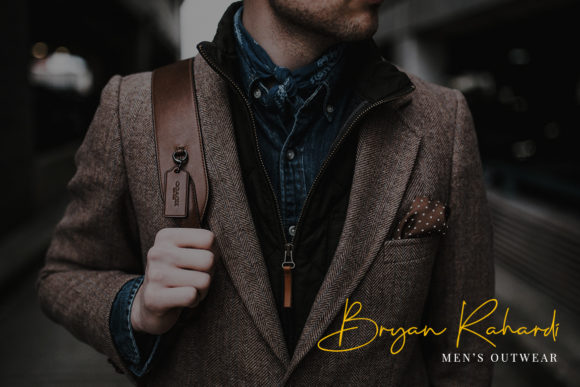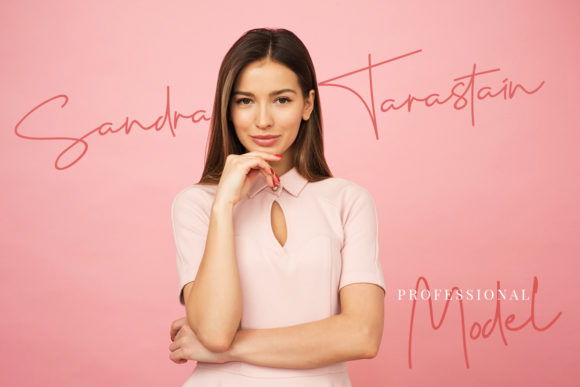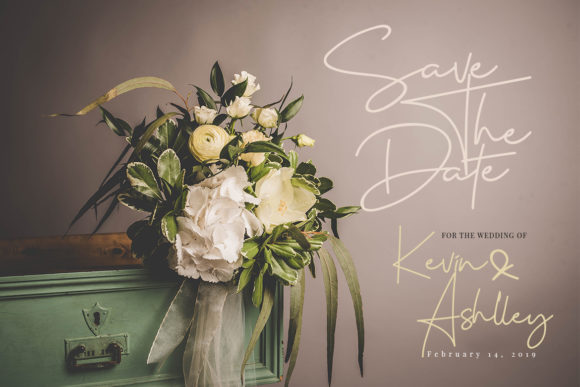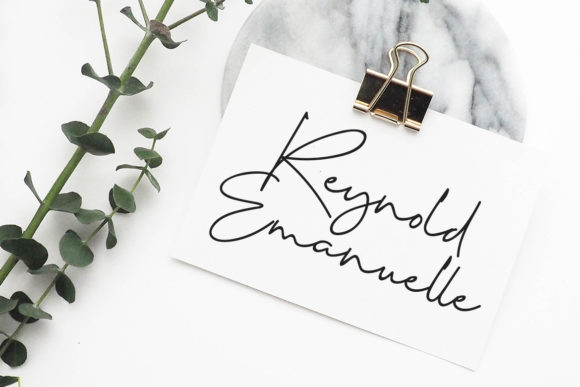
Cervanttis Script Font: Elevate Your Designs with a Touch of Handwritten Elegance
In the world of design, fonts play a pivotal role in conveying messages, evoking emotions, and creating lasting impressions. Among the myriad of fonts available, the Cervanttis Script Font stands out for its unique blend of natural flow and stylish sophistication. This handwritten signature script is versatile, making it an ideal choice for a wide range of projects, from branding and logos to wedding designs, social media posts, and beyond.
The Essence of Cervanttis Script Font
The Cervanttis Script Font is characterized by its fluid, handwritten strokes that exude a sense of elegance and personal touch. Its natural and stylish flow makes it perfect for designers and crafters looking to add a human element to their creations. Whether you’re working on a logo, a wedding invitation, or a product label, this font ensures that your design stands out with a unique, handcrafted feel.
One of the key advantages of the Cervanttis Script Font is its versatility. It’s suitable for a myriad of applications, including:
• Branding Projects: Create memorable brand identities with a font that speaks to your audience on a personal level.
• Logos: Stand out in the market with a logo that combines professionalism with a personal touch.
• Wedding Designs: Add a romantic and elegant feel to wedding invitations, banners, and other decorative materials.
• Social Media Posts: Engage your followers with visually appealing posts that reflect a sophisticated yet approachable tone.
• Advertisements: Capture attention with ads that feature a compelling message in a stylish, hand-written font.
• Product Packaging: Elevate your product’s presentation with labels and packaging that exude quality and care.
• Product Designs: Incorporate a personal touch into your product designs, making them more relatable and desirable.
• Labels: Whether for products, files, or any other use, labels with the Cervanttis font are sure to leave a lasting impression.
• Photography: Use the Cervanttis Script Font for watermarks or photo overlays to add an artistic touch to your images.
• Invitations: From birthday parties to formal events, this font adds a touch of class and warmth to any invitation.
• Stationery: Personalize your or your brand’s stationery with a font that tells a story of elegance and refinement.
Why Choose Cervanttis Script Font?
Choosing the Cervanttis Script Font for your design projects comes with numerous benefits:
• Unique Appeal: Its handwritten nature gives your designs a unique and distinctive look that stands out in a digital age.
• Emotional Connection: The personal touch of a handwritten font helps create an emotional connection with your audience.
• Flexibility: Suitable for both digital and print projects, offering great versatility for designers.
• Ease of Use: Designed to be user-friendly, making it easy to incorporate into various design projects.
The Cervanttis Script Font is a powerful tool for designers and crafters looking to infuse their projects with a sense of personality and elegance. Its natural flow and stylish appearance make it an excellent choice for a wide range of applications, from branding and advertising to personal stationery and photography. By incorporating the Cervanttis Script Font into your designs, you’re not just choosing a font; you’re adding a touch of handwritten warmth and sophistication that can elevate your work to new heights.
Whether you’re a professional designer or a DIY enthusiast, the Cervanttis Script Font is sure to become an indispensable part of your creative toolkit. So, why settle for ordinary when you can add a touch of elegance and personal touch to your designs? Explore the possibilities with the Cervanttis Script Font today and discover how it can transform your projects with its unique, handwritten charm.